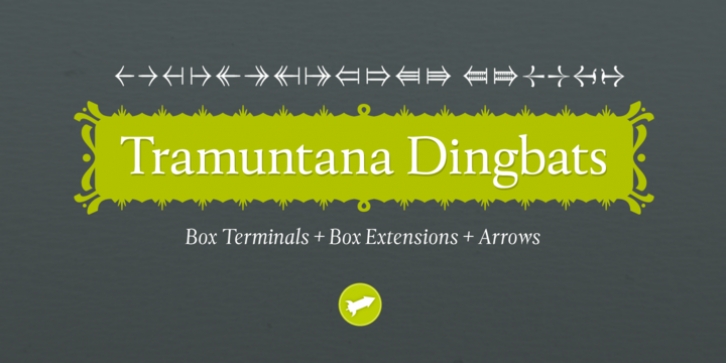
Tramuntana Dingbats is a selection of different graphic elements (Box Terminals, Box Extensions and Arrows) designed to work as a complement of the main typeface Tramuntana Pro. Tramuntana Dingbats can also be used with other typefaces as a decorative graphic resource.